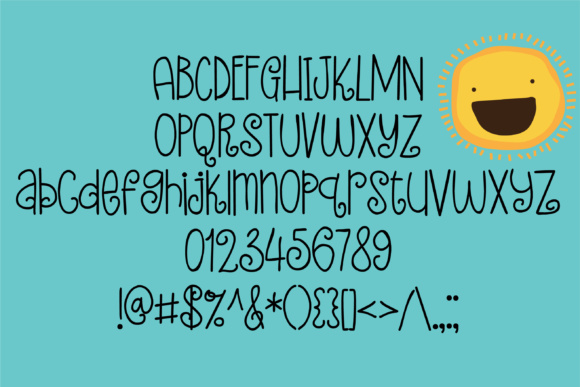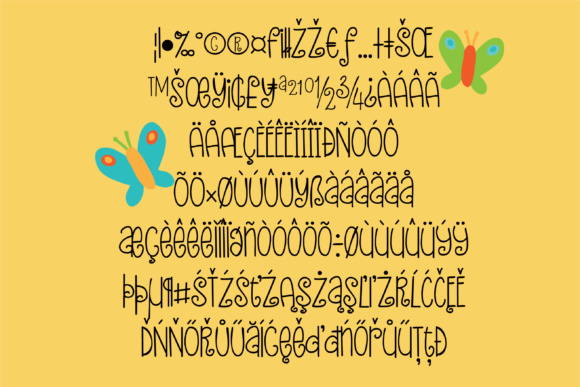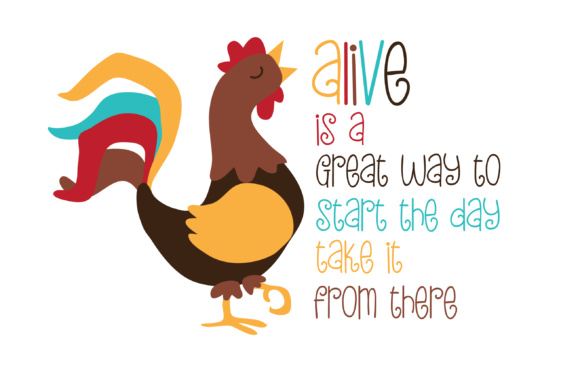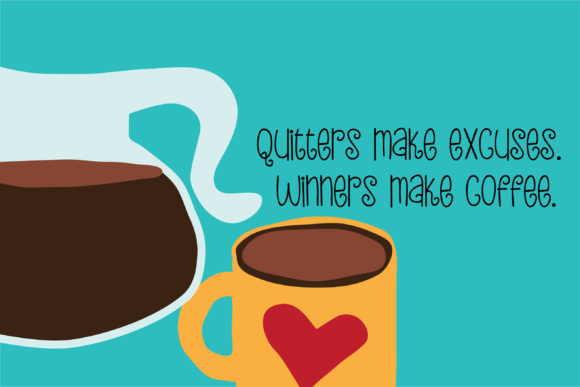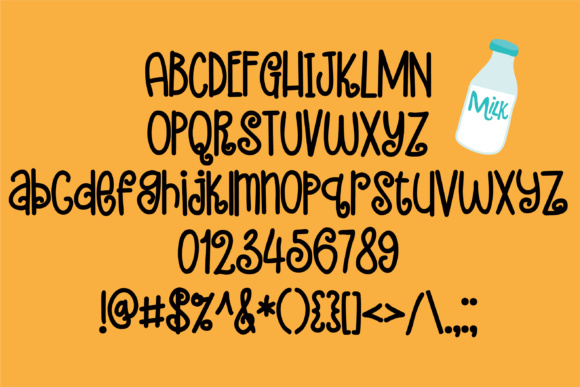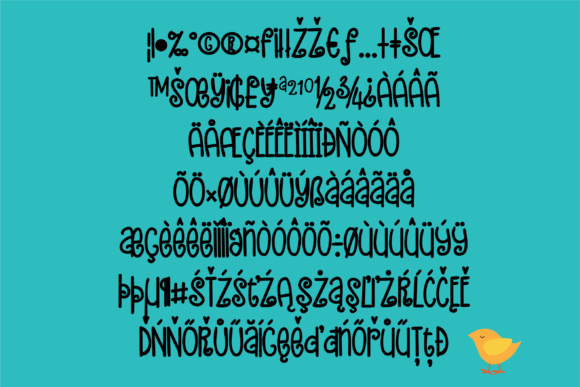
Introduction to PN Breakfast Burrito Font
Who among us hasn’t found ourselves staring at a blank canvas, wondering where to start a creative project? The blank page can be intimidating, but it’s often in these moments of uncertainty that we stumble upon the perfect design resource. For me, that moment came when I discovered the PN Breakfast Burrito Font – a whimsical, high-quality font that has since become a staple in my design arsenal.
With its playful curls and lack of descenders in the lowercase, the PN Breakfast Burrito Font adds a touch of whimsy to any project. Whether you’re working on a branding project, a social media campaign, or simply a fun design for personal use, this font is sure to bring a smile to your face. And the best part? It’s available for free download, making it an invaluable resource for designers on a budget.
What sets the PN Breakfast Burrito Font apart from other design resources is its versatility. Its transparent background makes it easy to layer with other elements, while its two weights (regular and bold) provide a range of options for customizing your design. Whether you’re looking to add a touch of fun to your next project or simply need a reliable design resource, the PN Breakfast Burrito Font is sure to deliver.
Key Features of PN Breakfast Burrito Font
- High-quality, vector-based font design suitable for creative projects.
- Unique, hand-drawn design elements that add a personal touch to any creative project.
Honest Review: PN Breakfast Burrito Font
I recently stumbled upon the PN Breakfast Burrito Font, and I must say it’s a fantastic addition to my design arsenal. As a designer, I’m always on the lookout for high-quality fonts that can elevate my creative projects. This font definitely delivers.
One of the standout features of PN Breakfast Burrito Font is its unique and playful design. It’s perfect for adding a touch of whimsy to your designs, and its transparent background makes it easy to work with.
- Unique and playful design
However, I do have a few minor complaints:
- ⚠️ Limited character set, which may not be ideal for longer text-based projects
- ⚠️ Not as versatile as some other fonts, but still great for specific design needs
Overall, I’m impressed with the PN Breakfast Burrito Font. It’s a fun and creative design resource that’s perfect for adding a unique touch to your projects. If you’re looking for a high-quality, free font to spice up your designs, I’d definitely recommend giving it a try.
PN Breakfast Burrito Font
The PN Breakfast Burrito Font is a high-quality, free download design resource perfect for creative projects that require a fun and playful touch. With its transparent background, this font is versatile and easy to use in various design applications.
Common Use Cases for PN Breakfast Burrito Font
The PN Breakfast Burrito Font is perfect for creative projects such as social media graphics, blog posts, and marketing materials. Its playful and fun design makes it ideal for food-related businesses, children’s products, and entertainment brands.
Tips for Getting the Most Out of PN Breakfast Burrito Font
To get the most out of the PN Breakfast Burrito Font, experiment with different font sizes, styles, and colors to create a unique and eye-catching design. You can also use the font in combination with other design elements to create a cohesive and visually appealing look.
Whether you’re working on a design project, creating a social media graphic, or simply want to elevate your personal brand, the PN Breakfast Burrito Font is an excellent choice. Its benefits include a free download, a transparent background for easy editing, and a design that’s sure to stand out. We highly encourage you to download and try it out – we’re confident you’ll love the results! With the PN Breakfast Burrito Font, the possibilities are endless, and we can’t wait to see what you create with it.